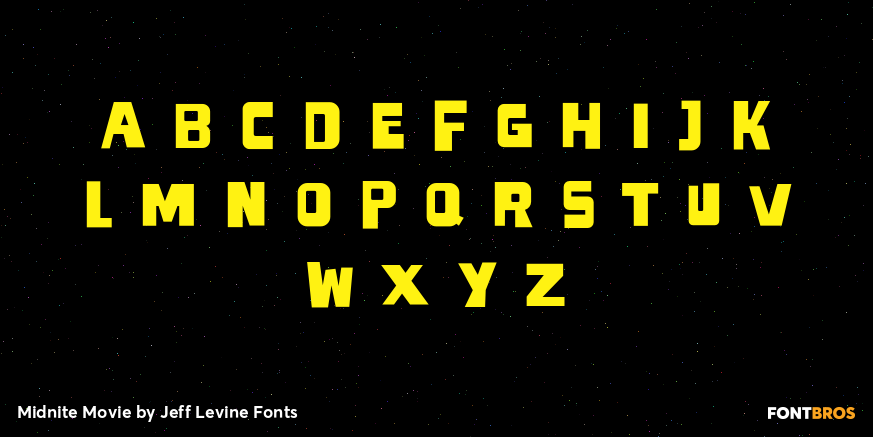
Midnite Movie
Midnite Movie JNL was inspired by the hand lettered title credits from the 1961 Hammer Pictures film 'Curse of the Werewolf” and is available in both regular and oblique versions.